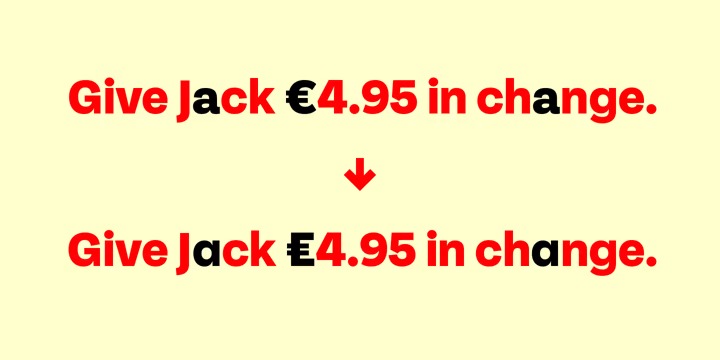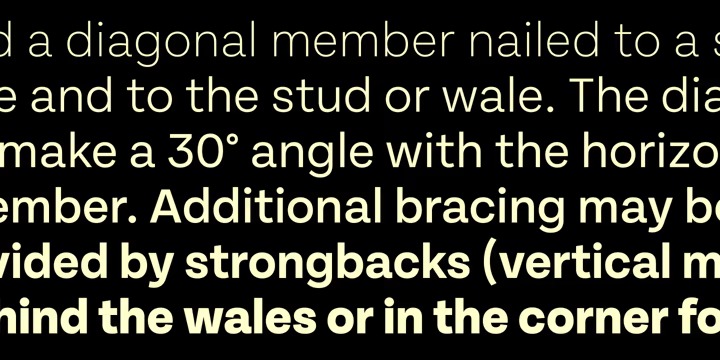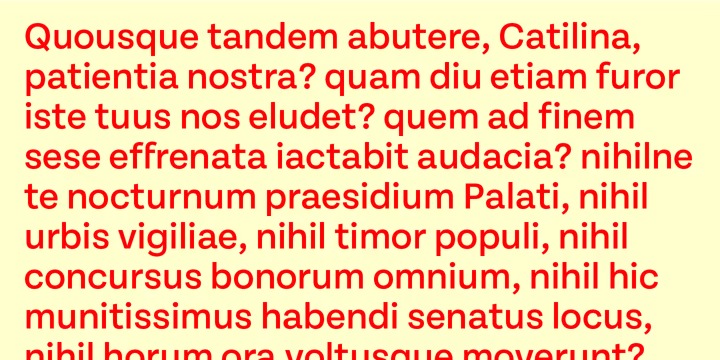
Tenon Font Family
Tenon Sans Serif Font
It’s a sleek modern sans serif font family created by Signal with almost circular bowls that lend extra energy to the line. Like its sibling, Tenon has open counters, a generous x-height, and wide proportions that suit small sizes and small screens. Used larger, its brisk, optimistic air makes it a good choice for projects ranging from editorial design to signage. It’s available in six weights, from the precise X-Light to the muscular X-Bold.